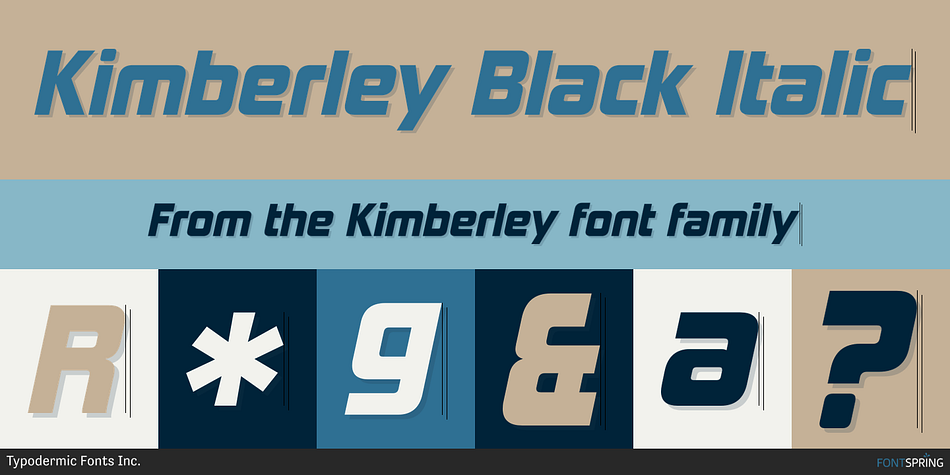
Kimberley Black Italic
Kimberley is a sans serif font family. This typeface has fourteen styles and was published by Typodermic Fonts Inc.
Introducing Kimberley, the cutting-edge sans-serif typeface that will bring your message to the forefront of the modern era. Inspired by the bold and timeless corporate industrial logos of the 1970s, Kimberley’s squarish design and sleek angles will captivate and inspire your audience with its effortlessly cool, machine-made aesthetic.
With seven distinct weights and accompanying italics, Kimberley is the ultimate tool in your design arsenal. Whether you’re creating a sleek corporate identity or crafting eye-catching advertising campaigns, Kimberley’s versatility ensures that your message will be delivered with clarity and distinction.